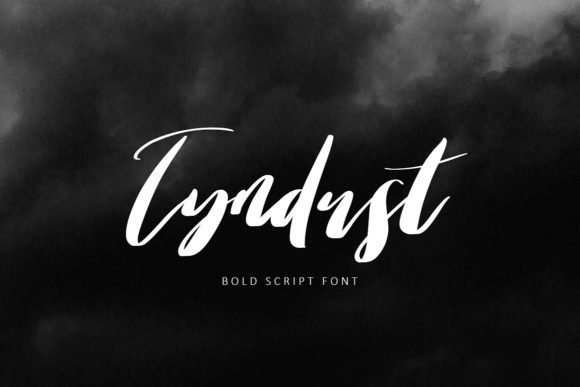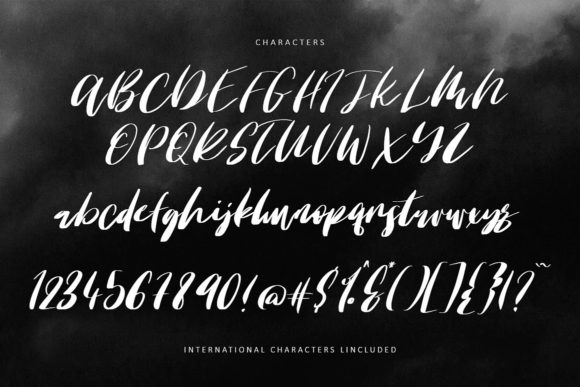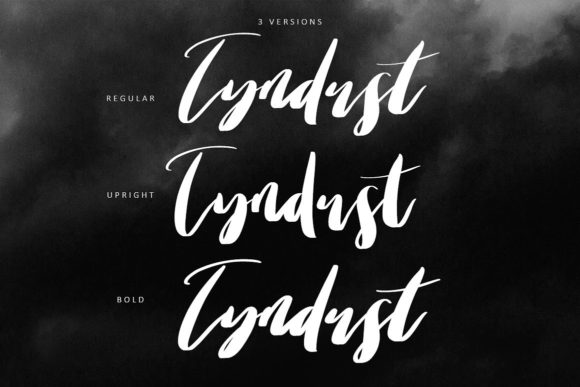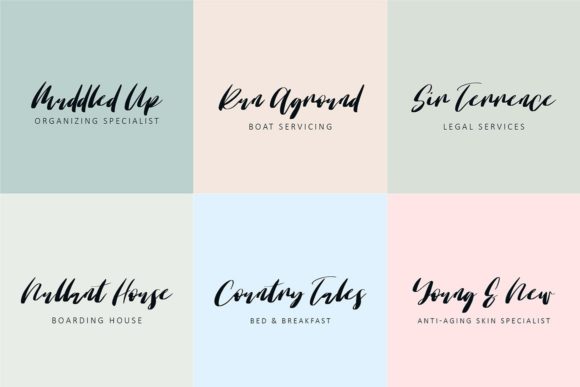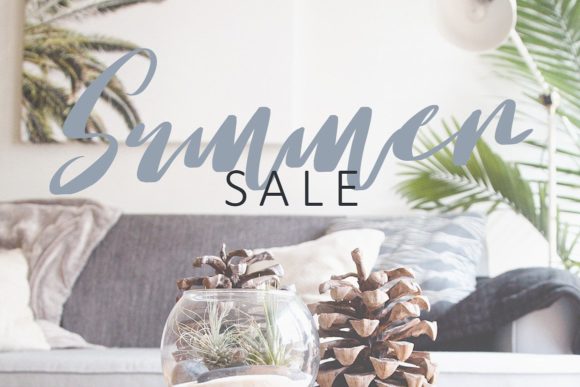
Tyndust Font
About Tyndust Font
The Tyndust is a trendy hand painted script font. It comes in three styles which gives you the oppurtunity to create multiple unique designs with just this one download.